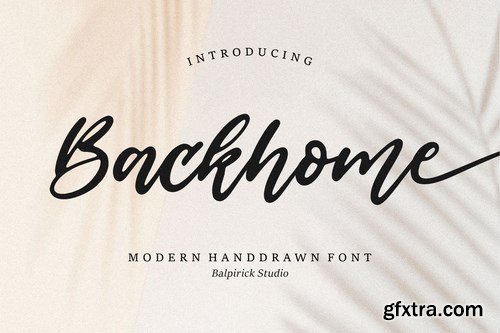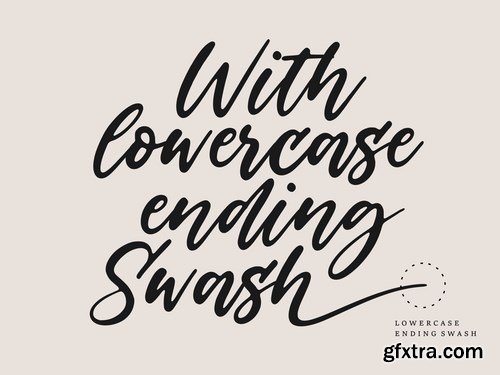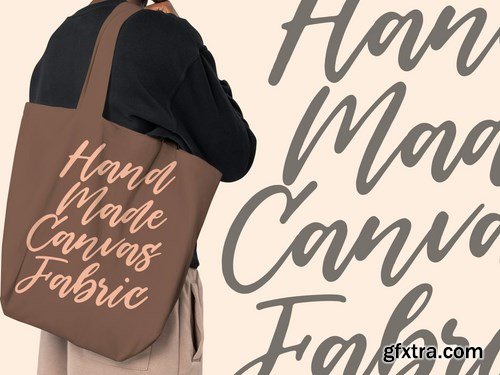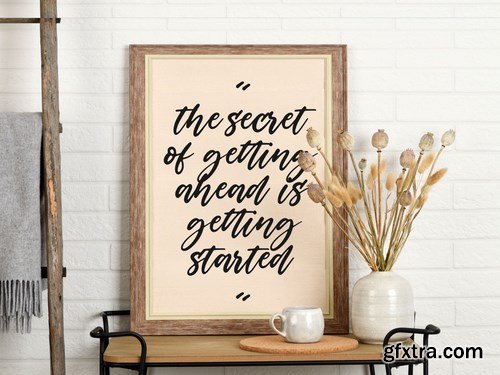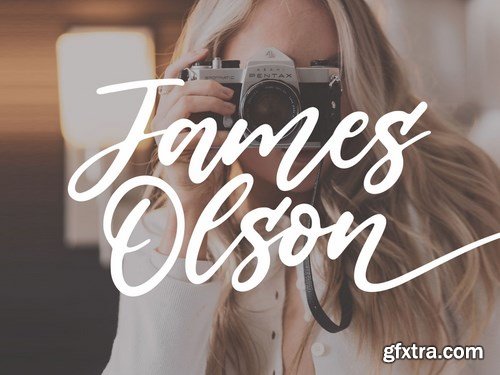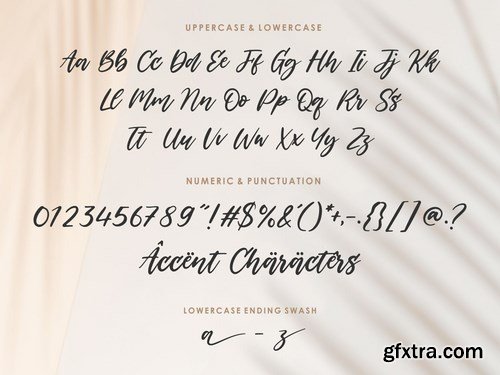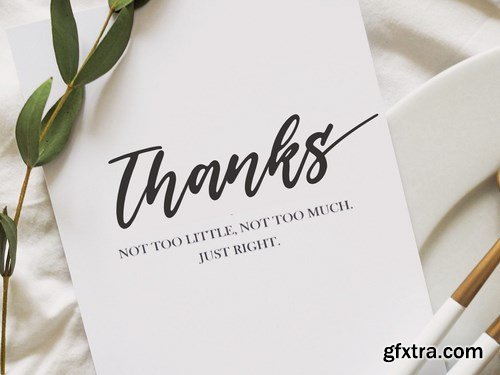
Introducing by Balpirick Studio.
Proudly Present, Backhome Font.
Backhome is a Modern Handdrawn Font.
Backhome is perfect for product packaging, branding project, megazine, social media, wedding, or just used to express words above the background.